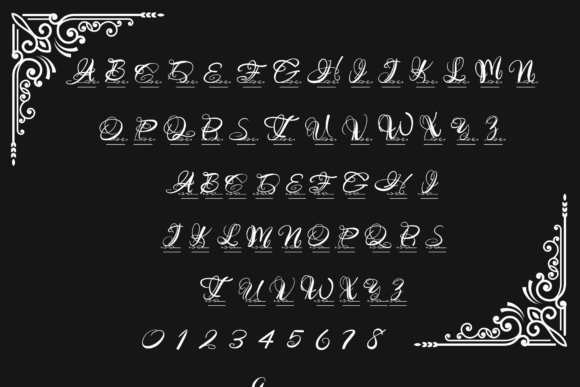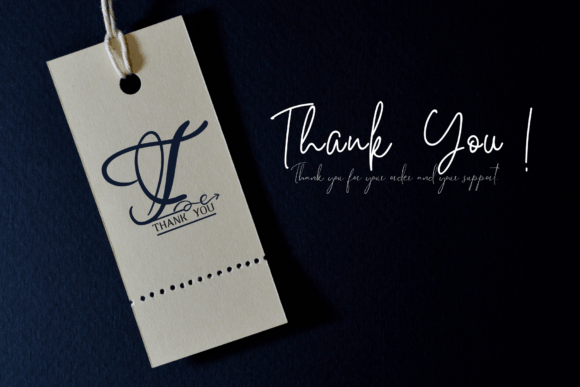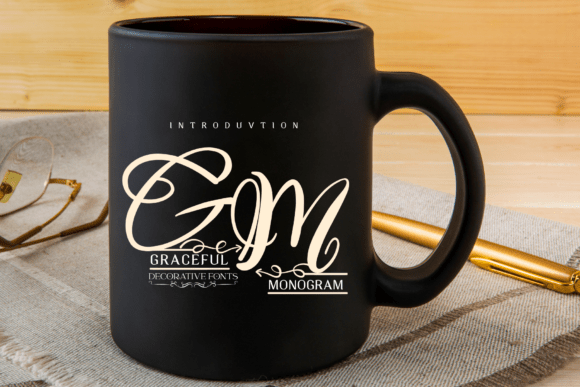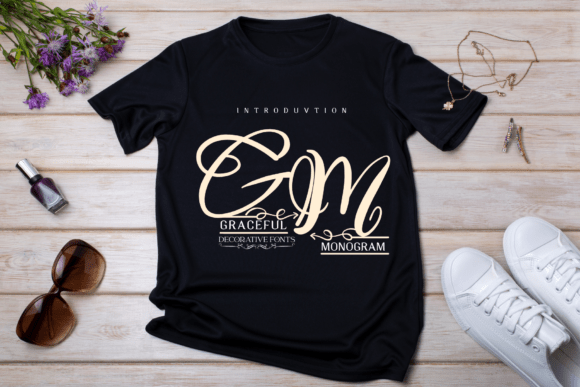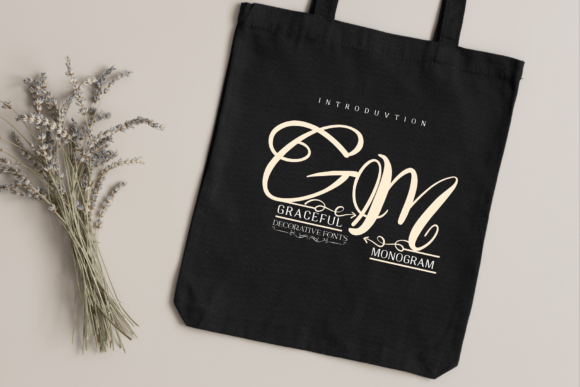
Introducing the Elegance of Graceful Monogram Font
In the world of typography, few fonts capture the essence of elegance and sophistication as beautifully as the Graceful Monogram Font. This decorative font is not just a stylish addition to your digital or physical projects; it’s a versatile tool that can elevate a wide range of creative endeavors. Whether you’re a designer looking for a unique touch or a crafter seeking that special something for your handmade projects, Graceful Monogram is sure to inspire.
What is Graceful Monogram Font?
Graceful Monogram Font is a decorative typeface that stands out for its intricate and elegant design. It falls under the category of monogram fonts, which are specifically created to highlight initials or letters in a stylish and sophisticated manner. This font is perfect for projects where you want to add a personal touch or convey a sense of luxury and refinement.
Uses of Graceful Monogram Font
The versatility of Graceful Monogram Font is one of its most appealing features. While it’s ideal for personal and decorative projects, its applications extend far beyond. Here are some of the many ways you can use this beautiful font:
- Note-taking and Diary Writing: Add a touch of elegance to your notes and diary entries. The decorative nature of Graceful Monogram makes writing feel like an art form.
- Greeting Cards: Create stunning greeting cards for any occasion. The font’s sophisticated look makes it perfect for invitations, thank you cards, and more.
- Banners and Signage: Use Graceful Monogram for creating eye-catching banners and signs. Its decorative style ensures that your message stands out.
- Content Creation: Enhance your digital content with elegant headings and titles. Graceful Monogram can add a professional and stylish touch to blog posts, social media updates, and website content.
- Mugs and Ceramics: Personalize mugs, plates, and other ceramic items with beautiful monogrammed designs.
- T-Shirts and Apparel: Create unique and stylish apparel with custom monograms or text.
- Stationery: Elevate your stationery with elegant monograms or quotes. Perfect for personal use or as gifts.
- Social Media Posts: Stand out on social media with decorative text overlays on your photos and videos.
Why Choose Graceful Monogram Font?
There are several reasons why designers and crafters prefer Graceful Monogram Font for their projects:
- Elegance and Sophistication: The font exudes a sense of luxury and refinement, making it perfect for projects that require a touch of elegance.
- Versatility: Its wide range of applications makes it a valuable addition to any creative toolkit.
- Easy to Use: Graceful Monogram Font is user-friendly and can be easily integrated into various design and crafting projects.
- Unique Designs: The intricate designs of the monograms ensure that your projects stand out from the ordinary.
Tips for Using Graceful Monogram Font
To make the most of Graceful Monogram Font, consider the following tips:
- Combine with Other Fonts: Pair Graceful Monogram with simpler fonts for contrast and visual interest.
- Experiment with Colors: The font looks great in metallic colors, pastels, and bold hues. Experiment to find the perfect color for your project.
- Play with Sizes: Don’t be afraid to vary the size of your text for a more dynamic look.
- Add Decorations: Consider adding decorative elements like flowers, borders, or frames to enhance your design.
Graceful Monogram Font is a versatile and elegant decorative font that can add a touch of sophistication to a wide range of projects. Whether you’re a designer working on professional assignments or a crafter looking for a unique element for your handmade creations, this font is sure to meet your needs. With its intricate designs and ease of use, Graceful Monogram Font is an excellent choice for anyone looking to elevate their creative work. So, why wait? Explore the possibilities of Graceful Monogram Font today and bring a touch of elegance to your projects!